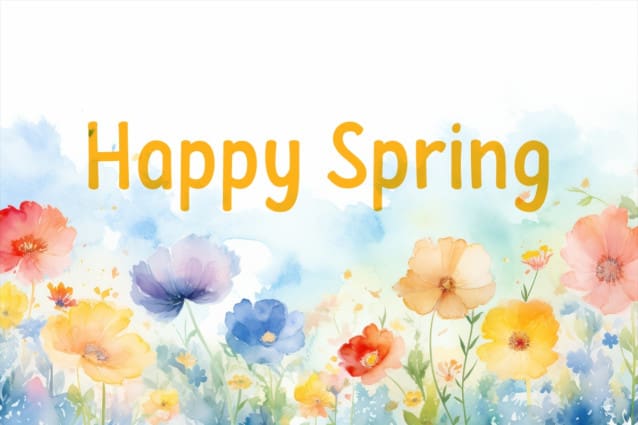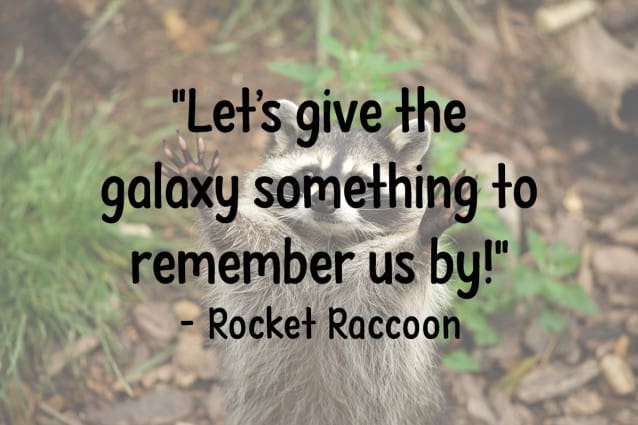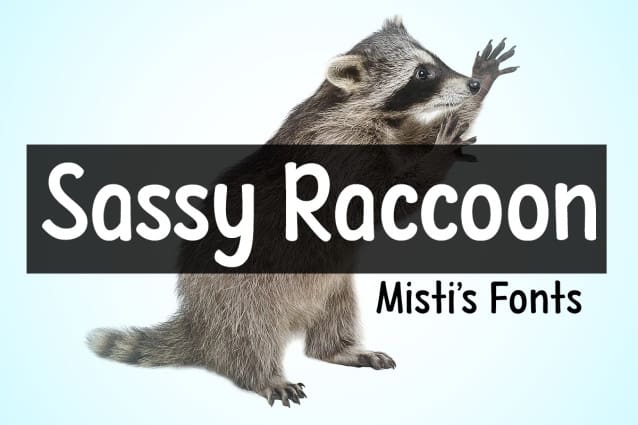
Sassy Raccoon Font
Sassy Raccoon Font, a playful and adorable display typeface that brings a touch of whimsy and charm to any project. This font features rounded edges and soft shapes, making it perfect for a wide range of applications, from children’s books to branding, packaging, and social media graphics.